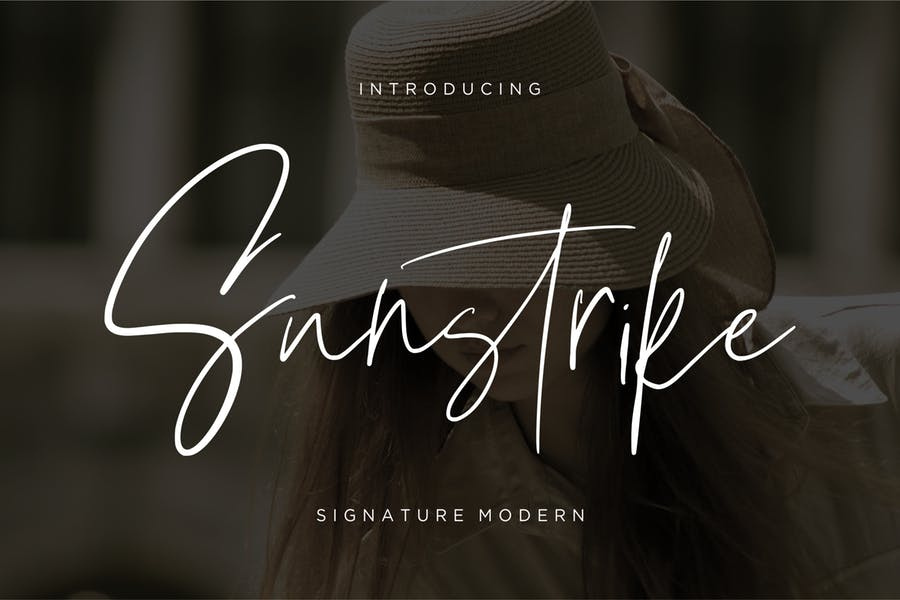
Suntrike Signature Modern Font
The Suntrike Signature Modern Font excels in contemporary design applications including modern brand identities, trendy startup logos, sleek product packaging, cutting-edge web design, progressive business cards, innovative social media graphics, modern wedding invitations, tech company branding, creative portfolios, and forward-thinking marketing materials. Its modern signature style makes it perfect for projects requiring contemporary elegance that communicates innovation and establishes progressive brand positioning with design-conscious audiences.
What makes the Suntrike Signature Modern Font genuinely exciting is its exceptional fusion of traditional signature elegance with bold contemporary design principles. The font features streamlined letterforms with clean, modern flourishes and progressive proportions that create a distinctly current appearance. Each character displays sophisticated craftsmanship with sharp precision, contemporary curves, and innovative connections that give text a cutting-edge quality. The font's modern aesthetic captures current design trends while maintaining the personal touch of handwritten signatures.
The Suntrike Signature Modern Font family typically includes regular weight with comprehensive character sets, featuring uppercase and lowercase letters, numerals, punctuation, and international glyphs. The typeface often incorporates stylistic alternates, contextual ligatures, and contemporary swashes that enhance its modern signature appeal. These additional elements provide designers with creative flexibility to customize text appearance and achieve more natural-looking modern handwriting that reflects today's design standards and technological advancement.
This innovative modern font distinguishes itself through its remarkable ability to convey sophistication and progressiveness simultaneously. Unlike outdated script fonts that can appear traditional or conservative, Suntrike Signature Modern Font maintains a fresh, forward-thinking edge while delivering professional polish. The font's contemporary character makes it ideal for tech startups, modern brands, and creative projects where staying current with design evolution is essential for market relevance.